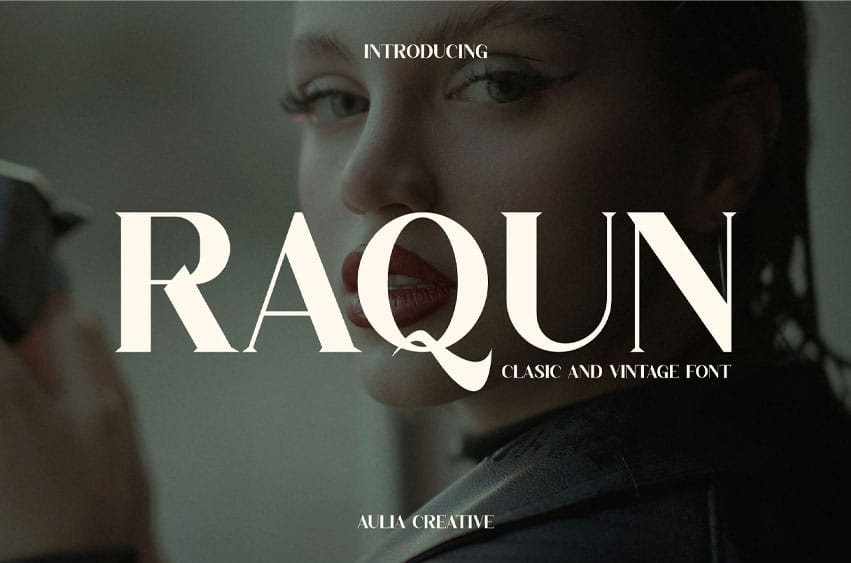
Raqun Font Serif Font Logo Font is and awesome and authentic display font.
Most suitable for poster design, headlines, quote writing, pamphlets, greeting cards, product packaging, book covers, logotypes, album covers, etc.